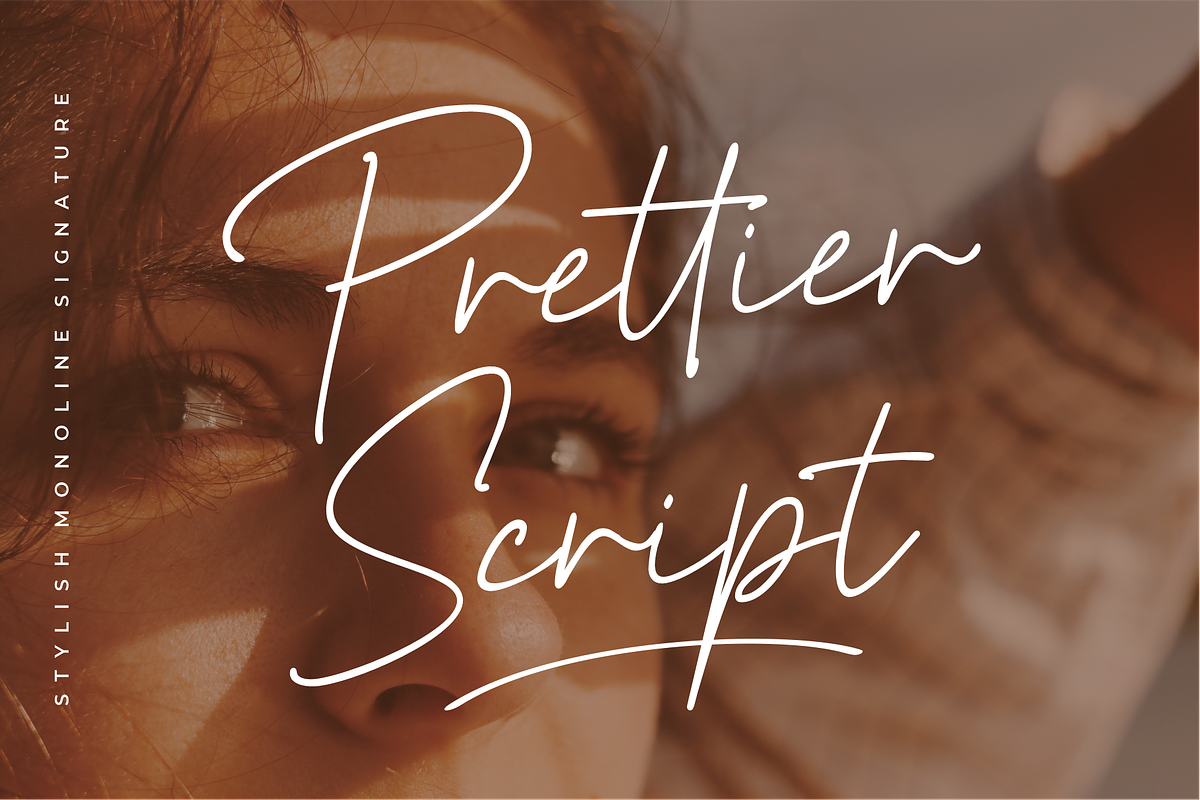
Prettier Script - Stylish Monoline Free Download
Introducing Prettier Script - Stylish Monoline Free Download, a charming handwritten signature typeface crafted by the 50Fox Team. Designed to emulate natural handwriting, this font adds a personal and elegant touch to your projects. Ideal for branding, wedding designs, social media posts, product packaging, and more, its smooth, monoline strokes enhance the beauty of any creation. Download Prettier Script - Stylish Monoline Free Download to explore its features in personal projects. For commercial use, please ensure you purchase the appropriate license. Elevate your designs with the graceful and authentic Prettier Script - Stylish Monoline Free Download